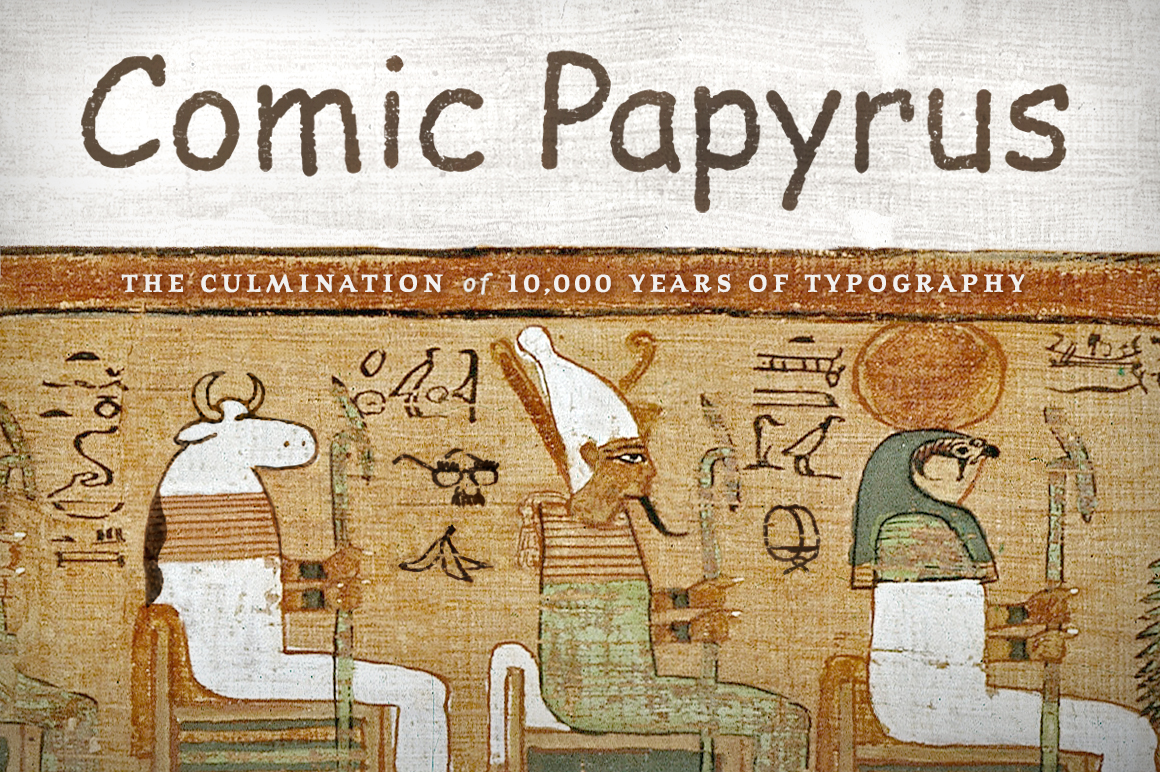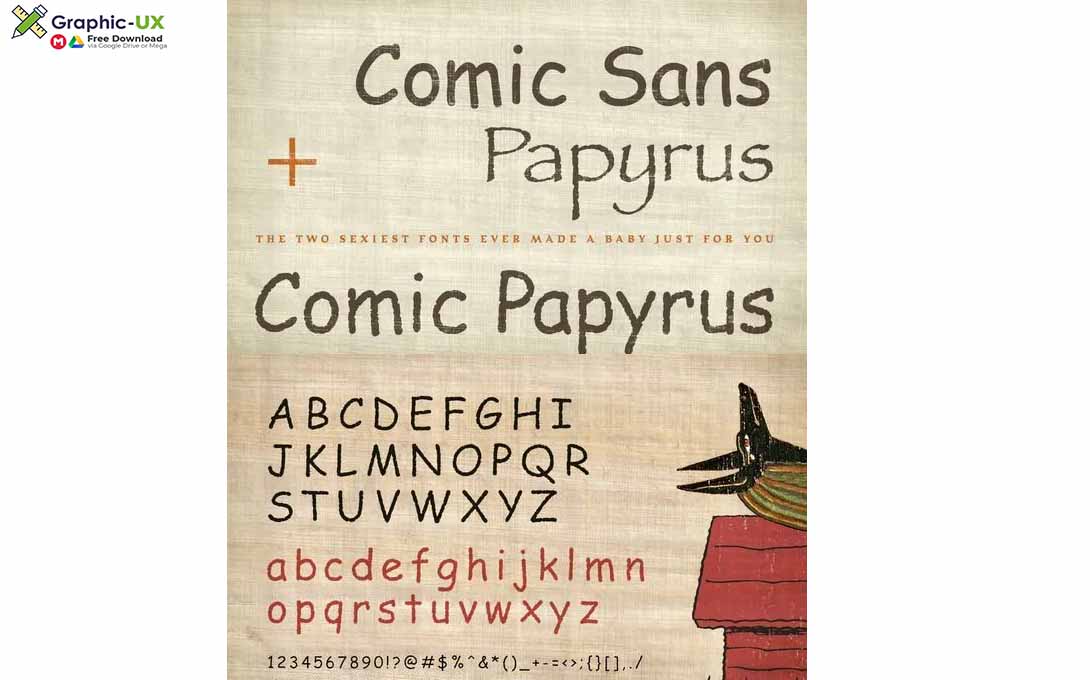
Comic Papyrus Font
Comic Papyrus Font - You heard right — comic freakin’ papyrus!. Comic papyrus is the perfect font for all your fun designs. The font subfamily is regular. The font was designed by ben harman and free for personal. We’re making room for the world’s first genetically engineered superfont.
We’re making room for the world’s first genetically engineered superfont. The font was designed by ben harman and free for personal. You heard right — comic freakin’ papyrus!. The font subfamily is regular. Comic papyrus is the perfect font for all your fun designs.
We’re making room for the world’s first genetically engineered superfont. The font was designed by ben harman and free for personal. Comic papyrus is the perfect font for all your fun designs. You heard right — comic freakin’ papyrus!. The font subfamily is regular.
The font was designed by ben harman and free for personal. You heard right — comic freakin’ papyrus!. The font subfamily is regular. Comic papyrus is the perfect font for all your fun designs. We’re making room for the world’s first genetically engineered superfont.
You heard right — comic freakin’ papyrus!. Comic papyrus is the perfect font for all your fun designs. We’re making room for the world’s first genetically engineered superfont. The font subfamily is regular. The font was designed by ben harman and free for personal.
The font subfamily is regular. We’re making room for the world’s first genetically engineered superfont. Comic papyrus is the perfect font for all your fun designs. The font was designed by ben harman and free for personal. You heard right — comic freakin’ papyrus!.
Comic Papyrus, A Complete Font Designed as a Mashup of Papyrus and
We’re making room for the world’s first genetically engineered superfont. Comic papyrus is the perfect font for all your fun designs. You heard right — comic freakin’ papyrus!. The font subfamily is regular. The font was designed by ben harman and free for personal.
We’re making room for the world’s first genetically engineered superfont. The font was designed by ben harman and free for personal. Comic papyrus is the perfect font for all your fun designs. You heard right — comic freakin’ papyrus!. The font subfamily is regular.
The font subfamily is regular. We’re making room for the world’s first genetically engineered superfont. Comic papyrus is the perfect font for all your fun designs. The font was designed by ben harman and free for personal. You heard right — comic freakin’ papyrus!.
The font was designed by ben harman and free for personal. You heard right — comic freakin’ papyrus!. The font subfamily is regular. Comic papyrus is the perfect font for all your fun designs. We’re making room for the world’s first genetically engineered superfont.
Designer Combines Papyrus and Comic Sans, The End Is Near Creative
The font subfamily is regular. We’re making room for the world’s first genetically engineered superfont. The font was designed by ben harman and free for personal. Comic papyrus is the perfect font for all your fun designs. You heard right — comic freakin’ papyrus!.
You heard right — comic freakin’ papyrus!. The font subfamily is regular. The font was designed by ben harman and free for personal. We’re making room for the world’s first genetically engineered superfont. Comic papyrus is the perfect font for all your fun designs.
Comic Papyrus Is The Perfect Font For All Your Fun Designs.
We’re making room for the world’s first genetically engineered superfont. The font was designed by ben harman and free for personal. The font subfamily is regular. You heard right — comic freakin’ papyrus!.